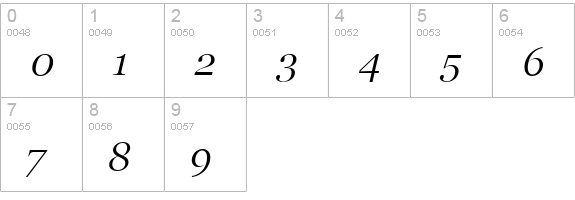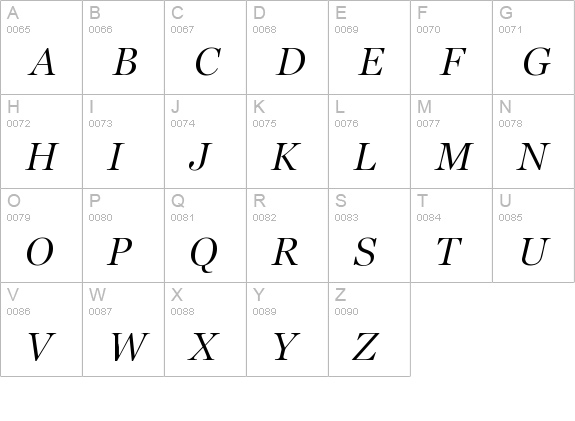
SD Georgia Light Demo Italic Font Details
SD Georgia Light Demo Italic is a refined, elegant, italic variant in the SD typeface family \xE2\x80\x94 well suited to elegant body text, refined sub-headings, and luxury branding.
SD Georgia Light Demo Italic is a stunning and stylish font that exudes elegance and sophistication. This font is perfect for adding a touch of class and refinement to any design project. Its italicized form adds a sense of motion and dynamism, making it particularly suitable for projects that require a modern and contemporary look. With its clean and crisp lines, SD Georgia Light Demo Italic offers a sense of professionalism and attention to detail. It is versatile enough to be used in various design applications, from branding and packaging to headlines and editorial designs. Its delicate curves and subtle slant create a harmonious balance, adding a touch of uniqueness to any text. One of the best parts about SD Georgia Light Demo Italic is that it is completely free to download at FontsMarket.com. This means that you can enjoy its beauty and functionality without any cost. Whether you are a professional designer or a casual enthusiast, this font is a valuable addition to your collection. The free availability of SD Georgia Light Demo Italic allows anyone to access and use this font without any restrictions. It empowers designers and creatives to explore their creativity and bring their ideas to life. By offering this font for free, FontsMarket.com has made it accessible to a broader audience, ensuring that everyone can benefit from its beauty and versatility. So, why wait? Download SD Georgia Light Demo Italic today from FontsMarket.com and elevate your designs to new heights. Whether you are working on a logo, a website, or a print project, this font will undoubtedly leave a lasting impression with its elegance and charm. Don't miss out on this fantastic opportunity to enhance your designs with a free and captivating font.